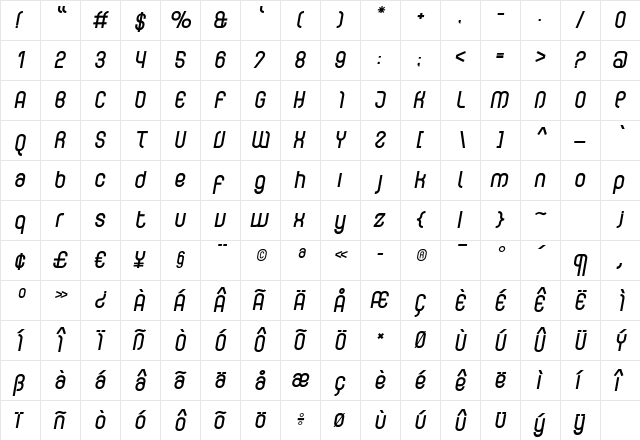
CurvatureBold Italic Regular Font Preview
Design Context for CurvatureBold Italic Typeface
CurvatureBold Italic takes a measured approach to typography — its balanced proportions and neutral character make it a reliable workhorse for both digital and print work. Its italic angle brings a sense of urgency and motion to the letterforms. The heavy weight commands attention and anchors typographic hierarchies.
Pro Tip: Try CurvatureBold Italic for annotation and caption copy alongside an upright companion — the contrast in angle creates a dynamic but ordered typographic system.